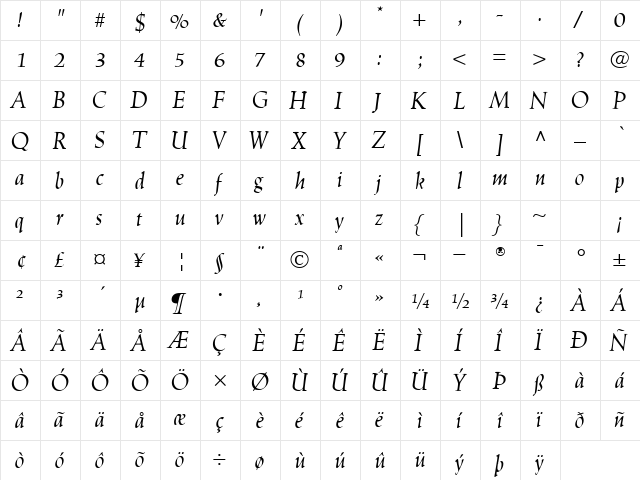
LinotypeTrajanus Italic
Design Context for LinotypeTrajanus Typeface
LinotypeTrajanus takes a measured approach to typography — its balanced proportions and neutral character make it a reliable workhorse for both digital and print work. Its italic angle brings a sense of urgency and motion to the letterforms.
Pro Tip: Try LinotypeTrajanus for annotation and caption copy alongside an upright companion — the contrast in angle creates a dynamic but ordered typographic system.